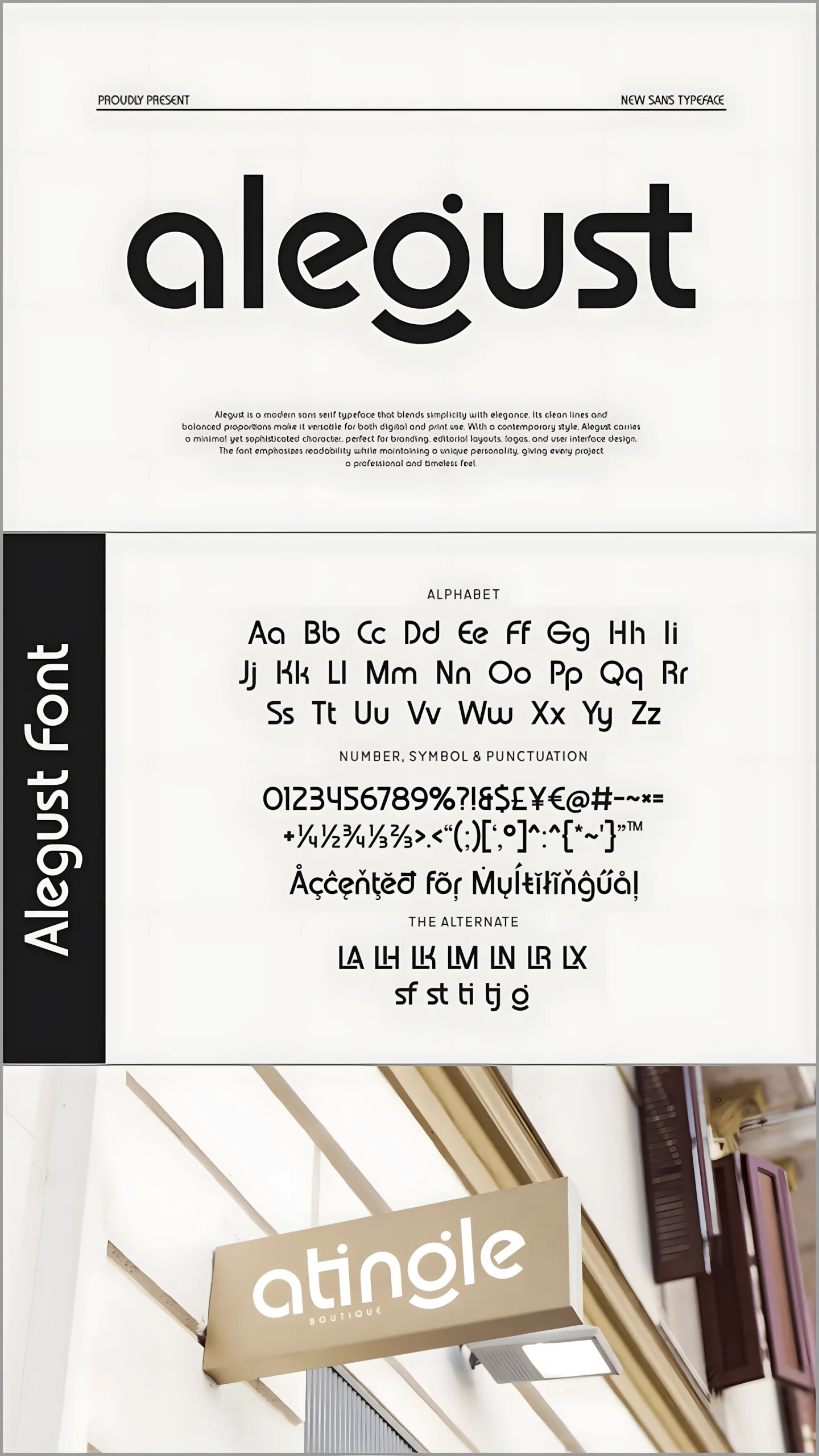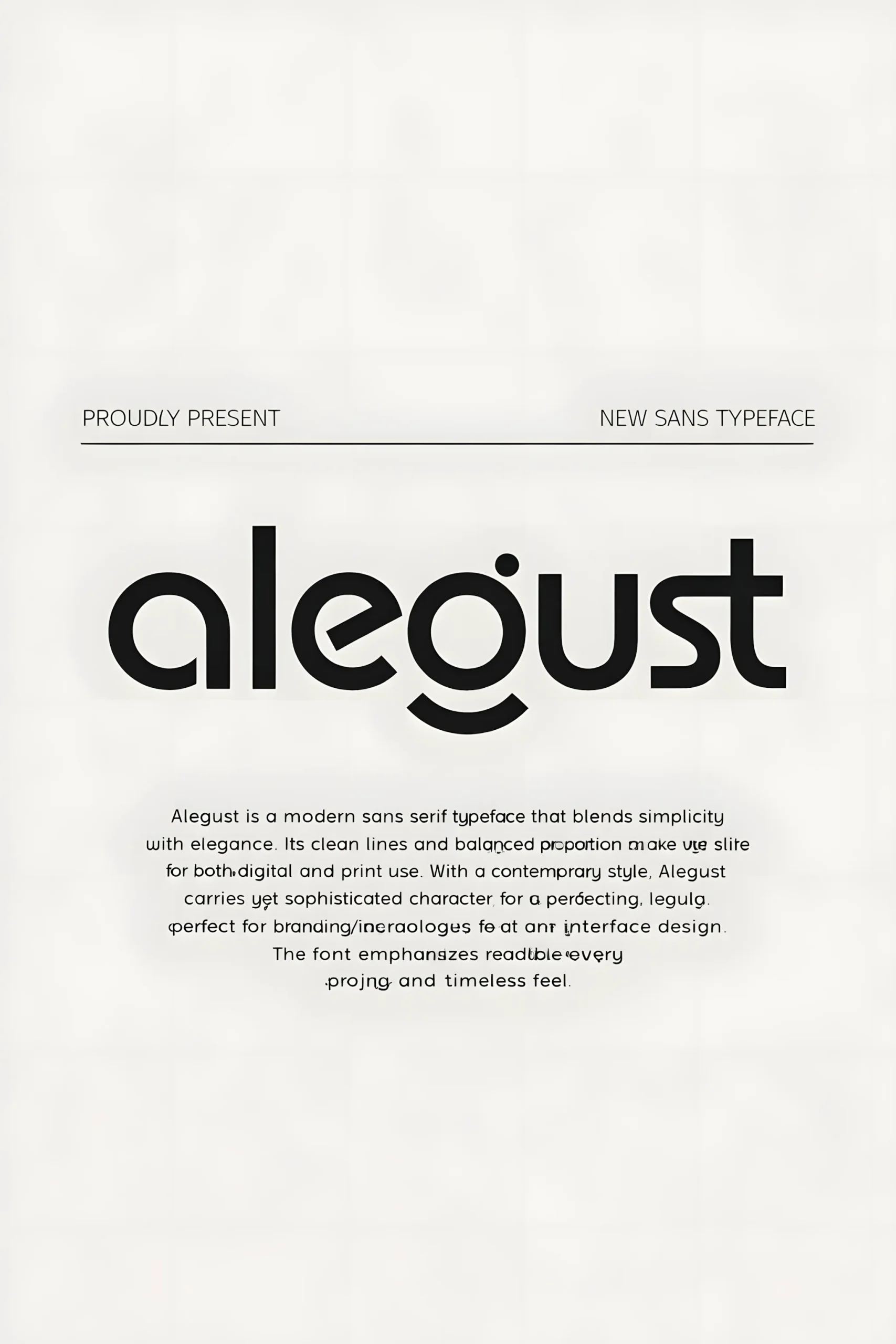
Typography often works best when it feels effortless. Alegust Font is a modern sans-serif typeface created to deliver exactly that effect — clarity, elegance, and quiet confidence. It blends minimalist construction with a refined visual tone, making it suitable for professional design environments where balance and readability matter most.
Alegust is designed to feel timeless rather than trendy. It supports content without overpowering it, which makes it a reliable choice for long-term branding and digital projects.
A Modern Sans Serif Built on Simplicity
At its core, Alegust is about clean lines and sophisticated restraint. The letterforms are smooth, well-proportioned, and carefully spaced, resulting in typography that feels calm and organized.
Instead of relying on decorative elements, the font achieves character through precision. This approach allows Alegust to adapt naturally to different industries and visual styles without losing its identity.
The overall impression is modern, professional, and quietly elegant.
Visual Tone and Typographic Feel
Alegust carries a neutral but refined personality. It feels:
- clean and contemporary
- professional without stiffness
- minimal without feeling empty
- elegant without being ornamental
Because of this balance, the font works equally well in creative and corporate contexts. It pairs easily with photography, illustrations, and color-driven layouts.
The typography remains legible across a wide range of sizes, which is essential for both display and functional text.
Where Alegust Performs Best
Branding and Logo Design
Alegust is especially effective in branding projects that value clarity and sophistication. It works well for:
- logos and wordmarks
- brand identities
- corporate and startup branding
- modern business visuals
Its clean structure helps brand names feel confident and timeless rather than trend-based.
Editorial and Layout Design
In editorial design, Alegust creates structure without distraction. It fits naturally into:
- magazines and brochures
- presentations and reports
- posters and print layouts
Text feels balanced and easy to read, even in longer blocks or structured grids.
UI, Web, and Digital Products
Alegust is designed with digital use in mind. Its smooth curves and controlled spacing maintain clarity on screens, making it suitable for:
- websites and landing pages
- user interface text
- dashboards and digital platforms
Because the font avoids short-lived stylistic trends, it remains useful across multiple projects and over long periods of time.
Why Clean Sans-Serif Fonts Stay Relevant
Clean sans-serif fonts continue to dominate modern design because they prioritize communication over decoration. Alegust fits perfectly into this category, offering a refined visual language that adapts easily to changing design needs.
Its strength lies in neutrality — a quality that allows content, imagery, and layout to take the lead.
Who Alegust Font Is Best For
Alegust is especially well suited for:
- graphic designers
- branding and identity specialists
- UI and UX designers
- agencies and studios
- anyone seeking a clean, modern sans-serif font
It works equally well for branding systems, editorial layouts, and digital interfaces.
Final Perspective
Alegust Font is designed to feel effortless, modern, and reliable. Its clean construction, balanced proportions, and elegant simplicity make it a dependable foundation for contemporary visual communication.
For designers who value clarity, structure, and long-term usability, Alegust offers a professional sans-serif solution that remains relevant across platforms, industries, and evolving design trends.